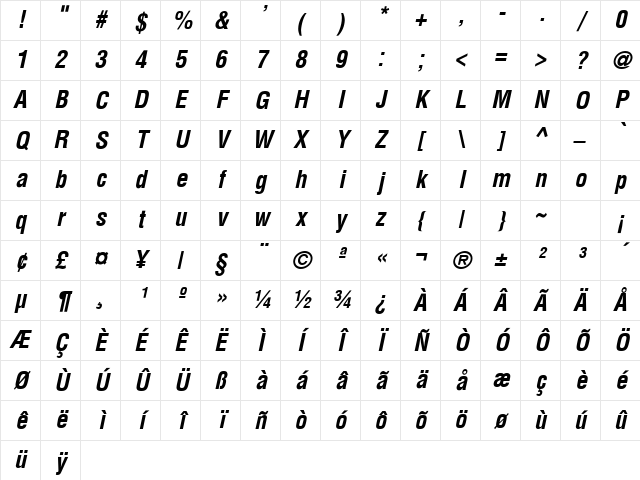
Switzerland Condensed Bold Italic
Switzerland Condensed Family
Switzerland Condensed Bold Italic
Complete Switzerland Condensed Bold Italic glyph index. Displaying only characters natively supported by Switzerland Condensed Bold Italic font.
Design Context for Switzerland Condensed
Switzerland Condensed is a composed and adaptable typeface that performs quietly and consistently across a wide range of design contexts. The slanted form adds forward momentum and visual energy. Its bold stroke weight gives it real presence on the page. Its narrow stance lets it pack a punch even in space-constrained designs.
Pro Tip: Use Switzerland Condensed for emphasis, pull quotes, and subheadings where its slanted energy can add rhythm to the layout.